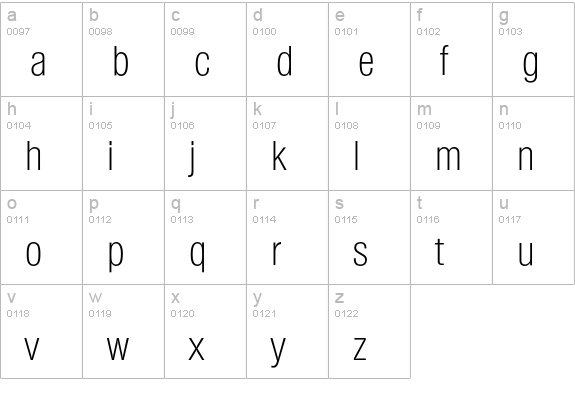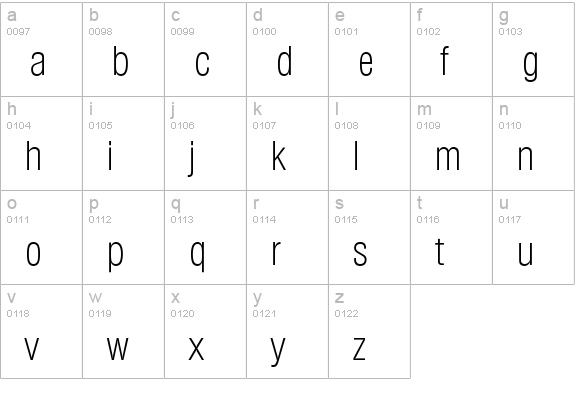
Olympia-XlightCond Font Details
Olympia-XlightCond is a sleek and elegant typeface that exudes sophistication and modernity. Its slender and refined letterforms are perfect for adding a touch of class to any design project. With its delicate and airy appearance, Olympia-XlightCond is ideal for creating a sense of luxury and exclusivity. This font is available for free download at FontsMarket.com, making it easily accessible to designers and creatives looking to elevate their work with a high-quality typeface. Whether you're designing a logo, a website, or a print piece, Olympia-XlightCond is sure to make a lasting impression with its graceful and refined aesthetic. Embrace the beauty and versatility of Olympia-XlightCond in your next project and watch as it effortlessly elevates your design to new heights. Download this exquisite font for free today and discover the endless possibilities it offers for creating stunning and sophisticated designs.